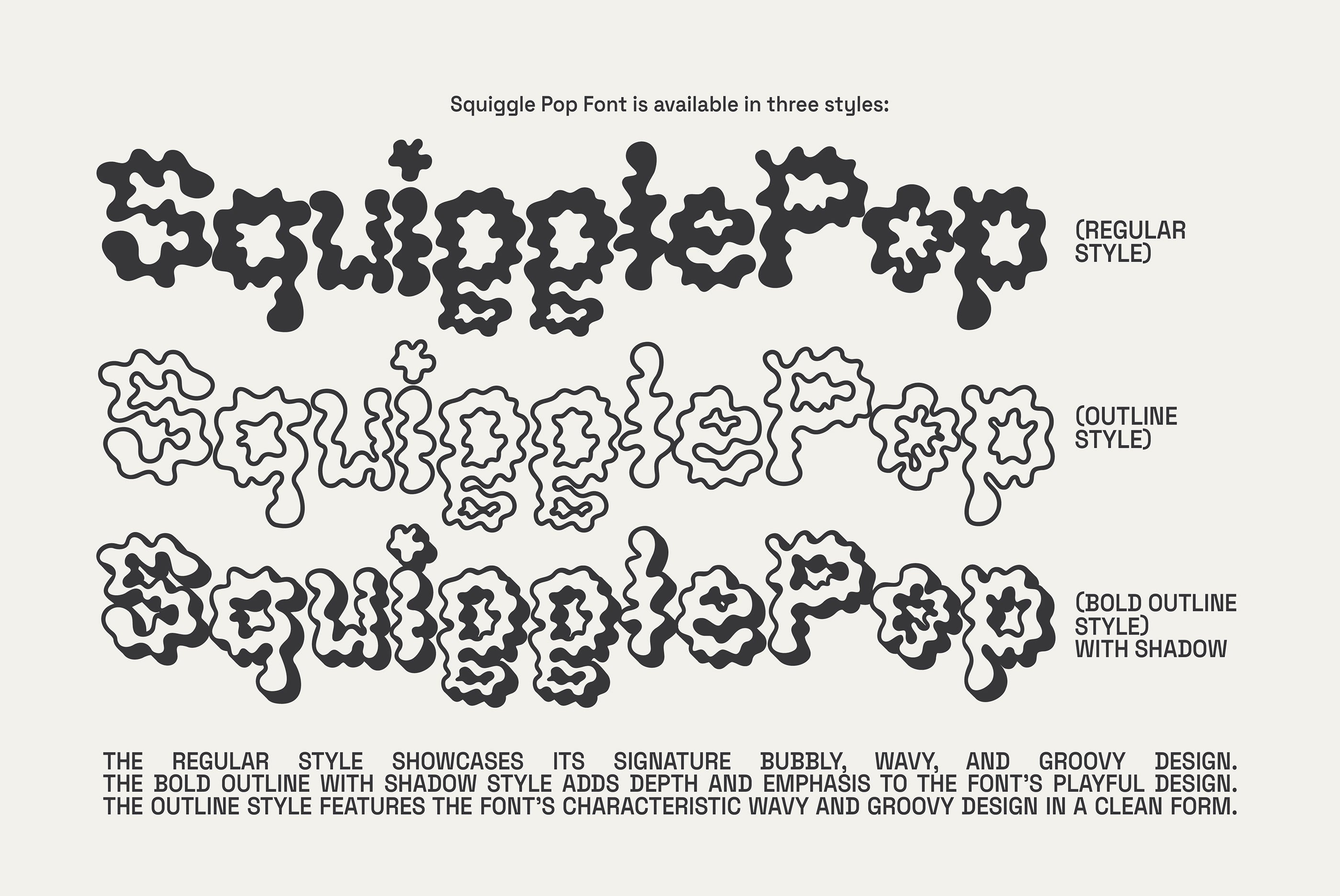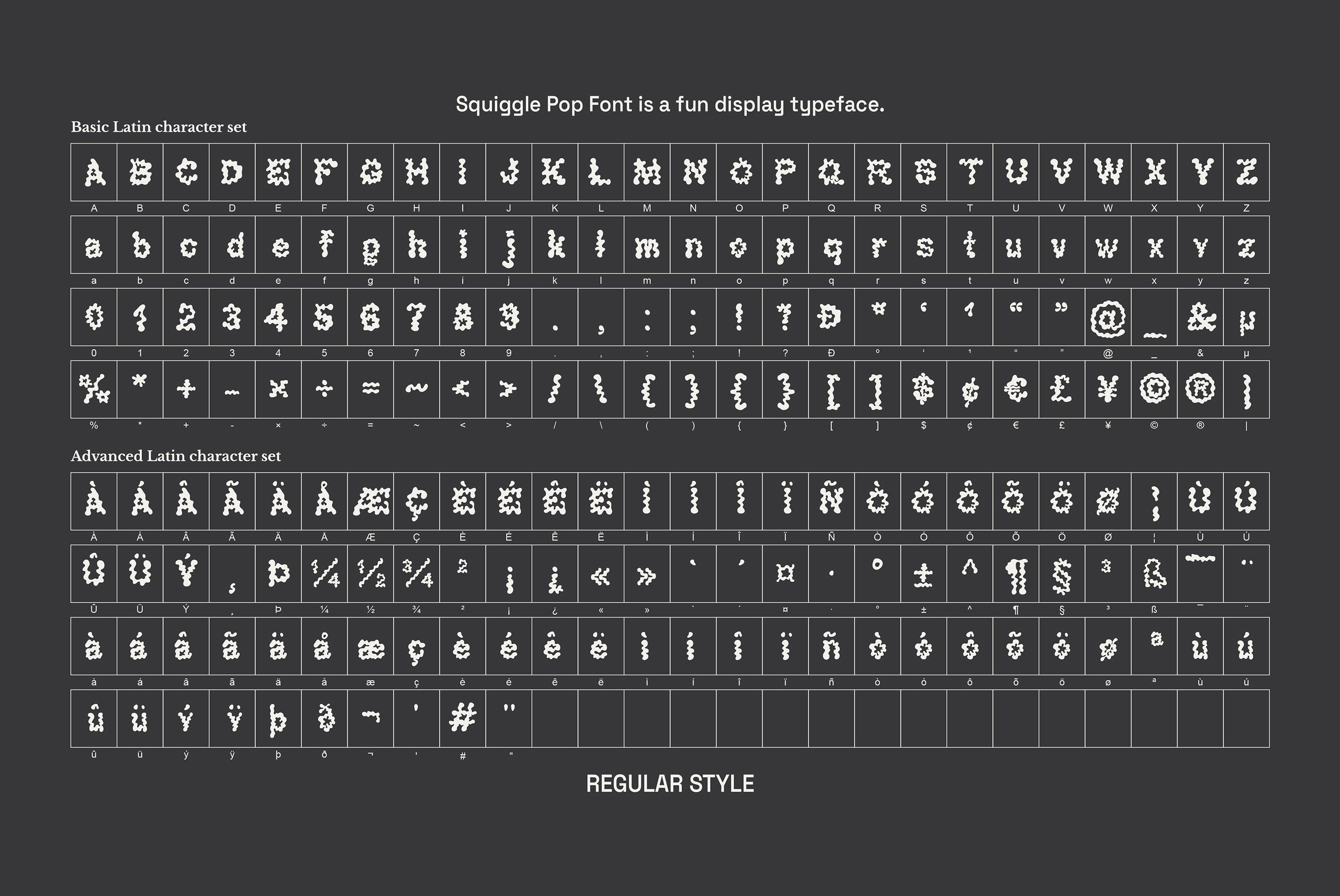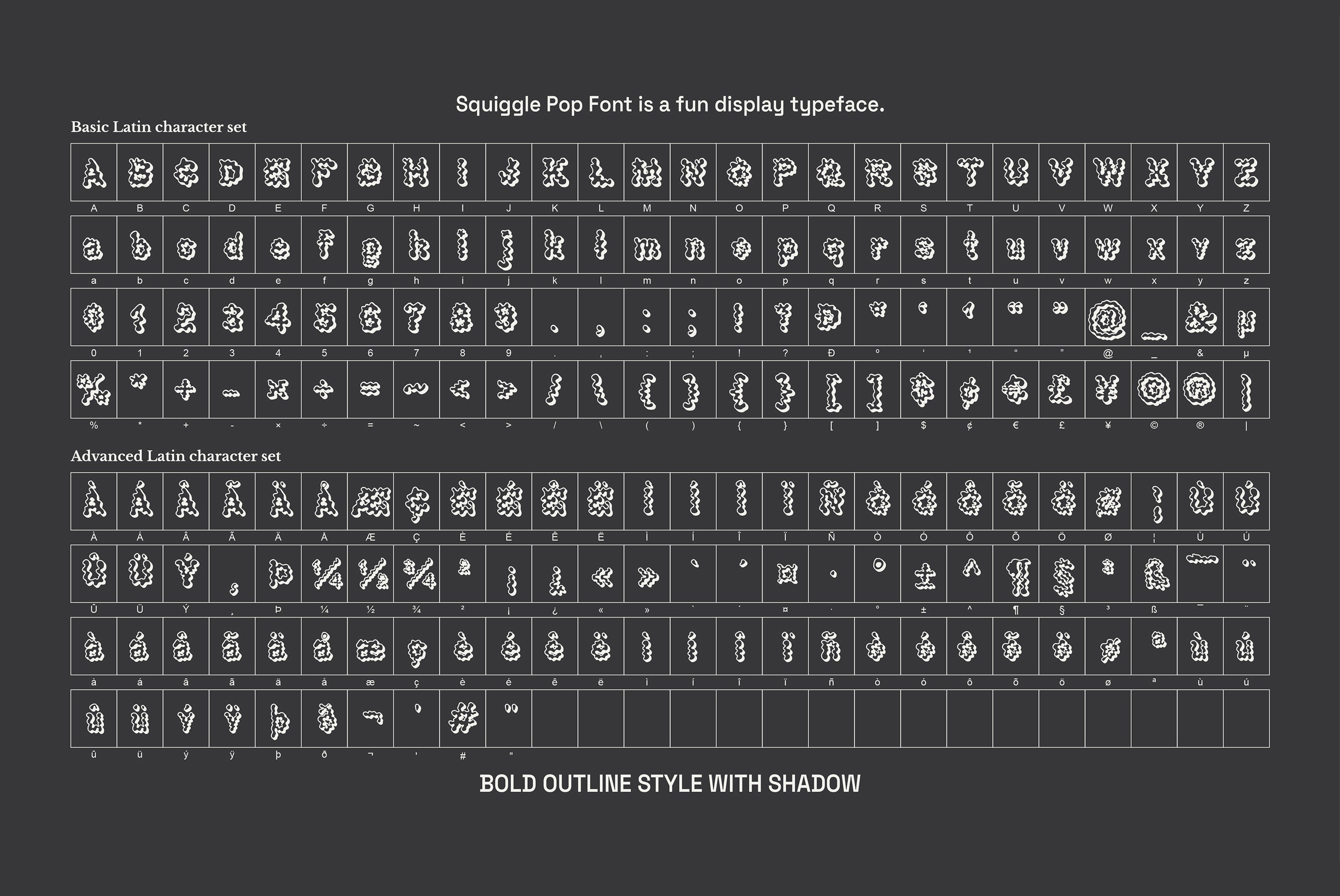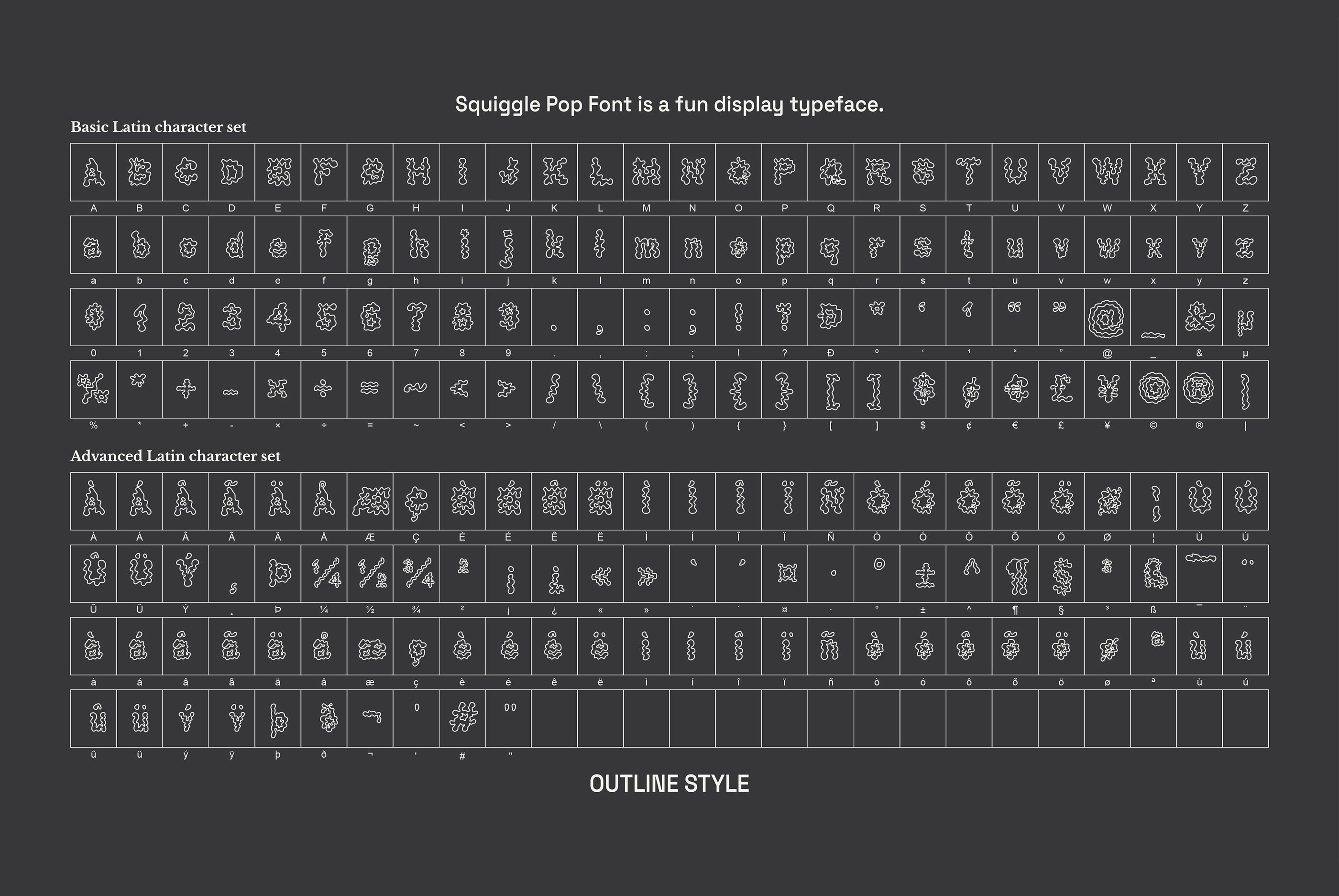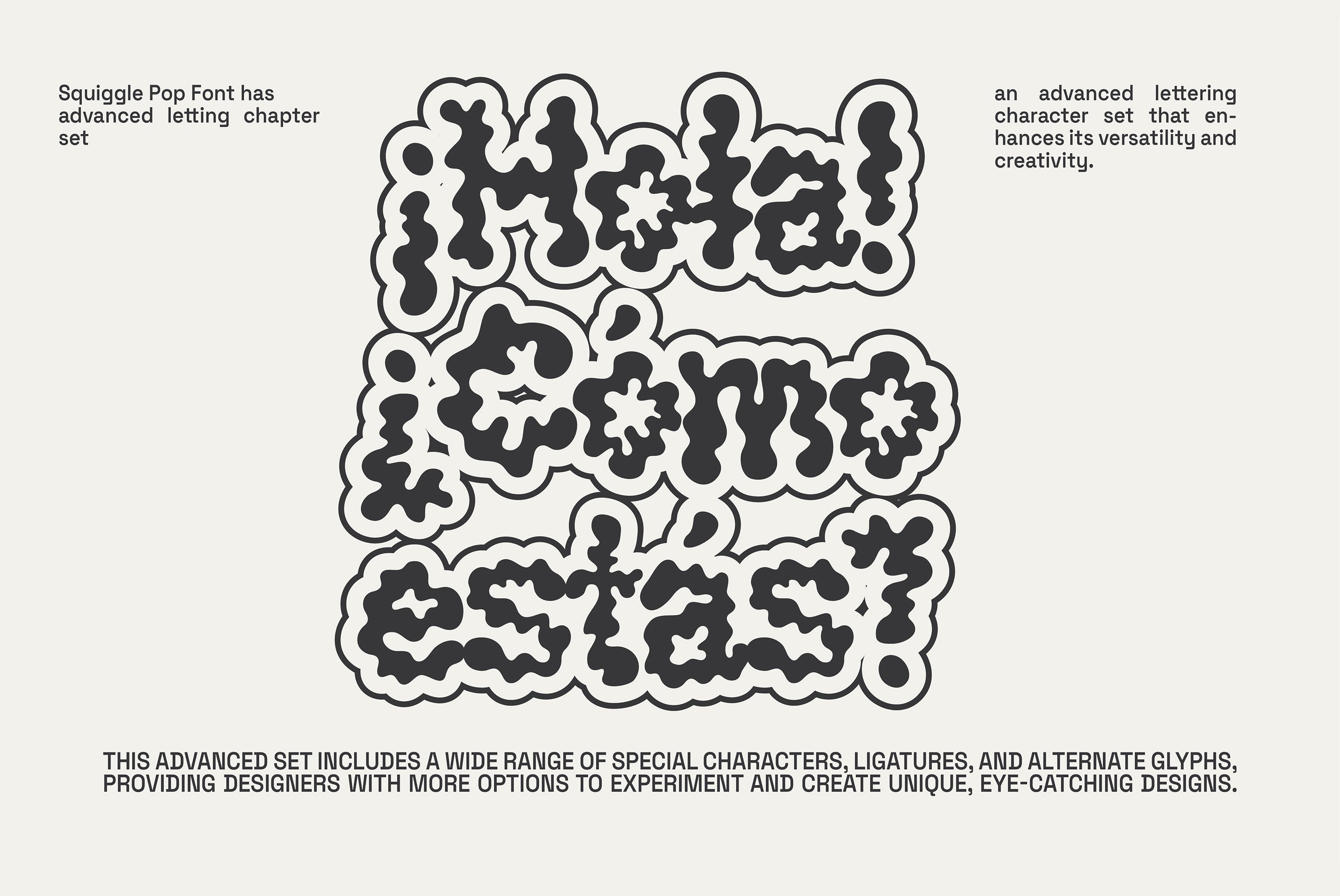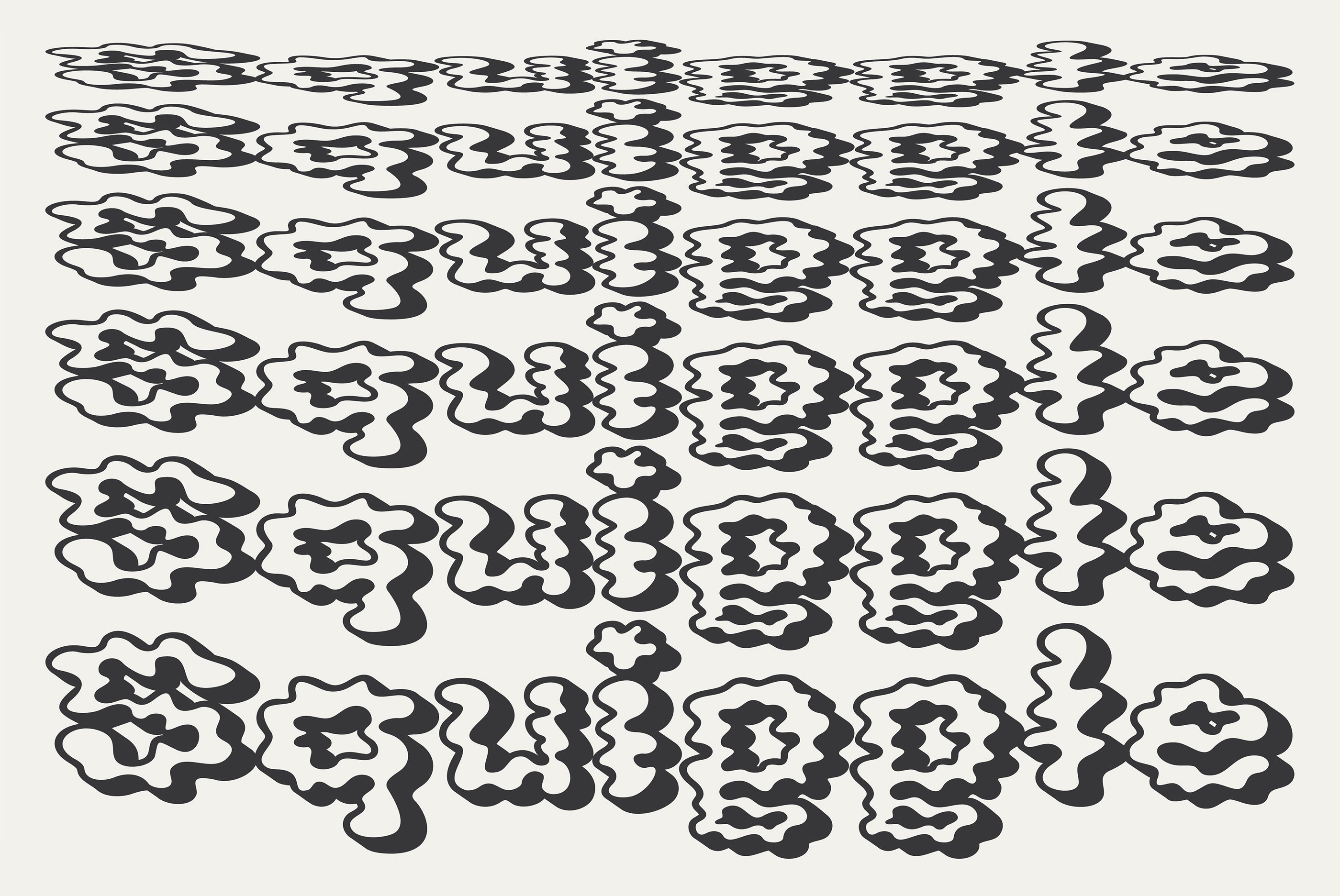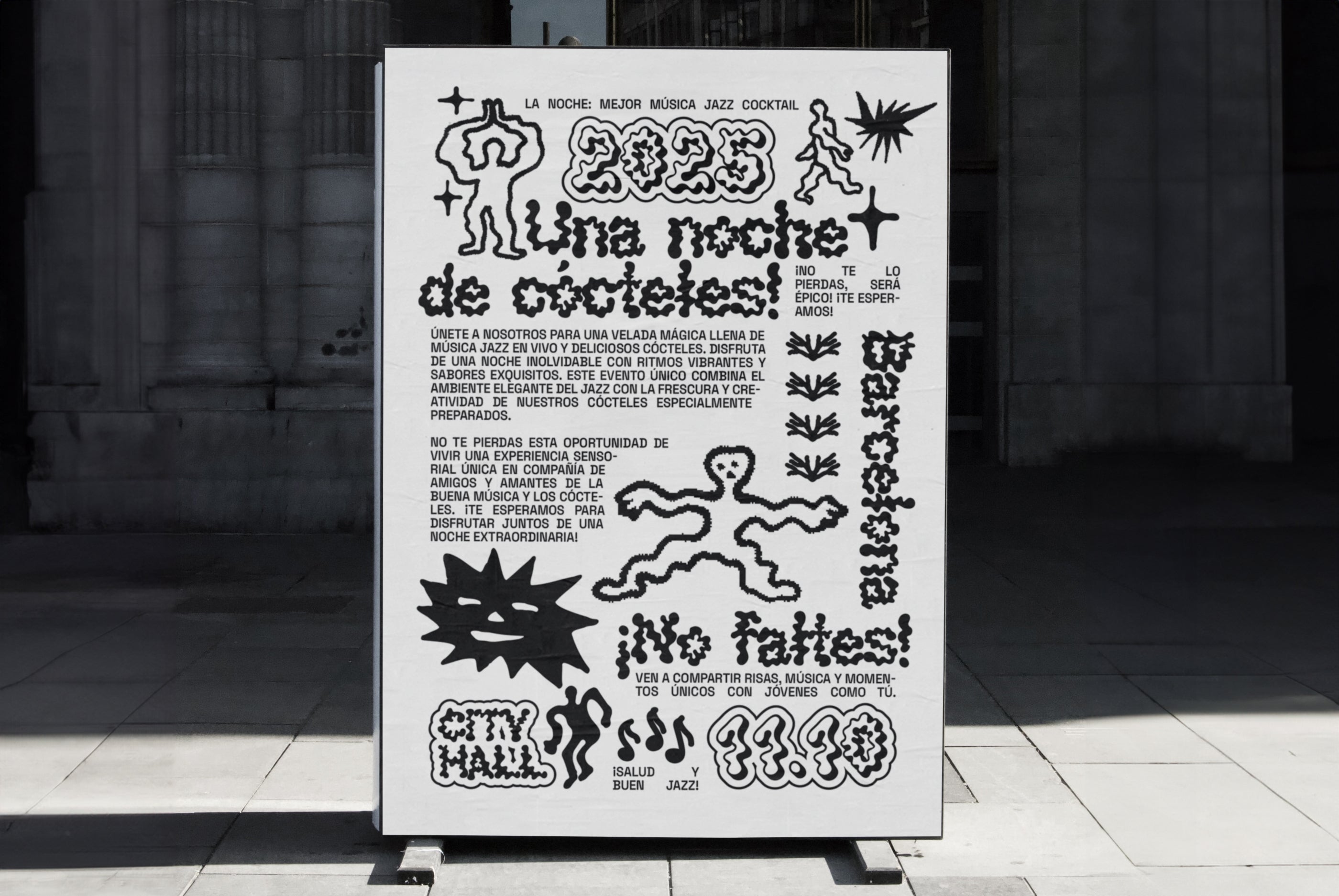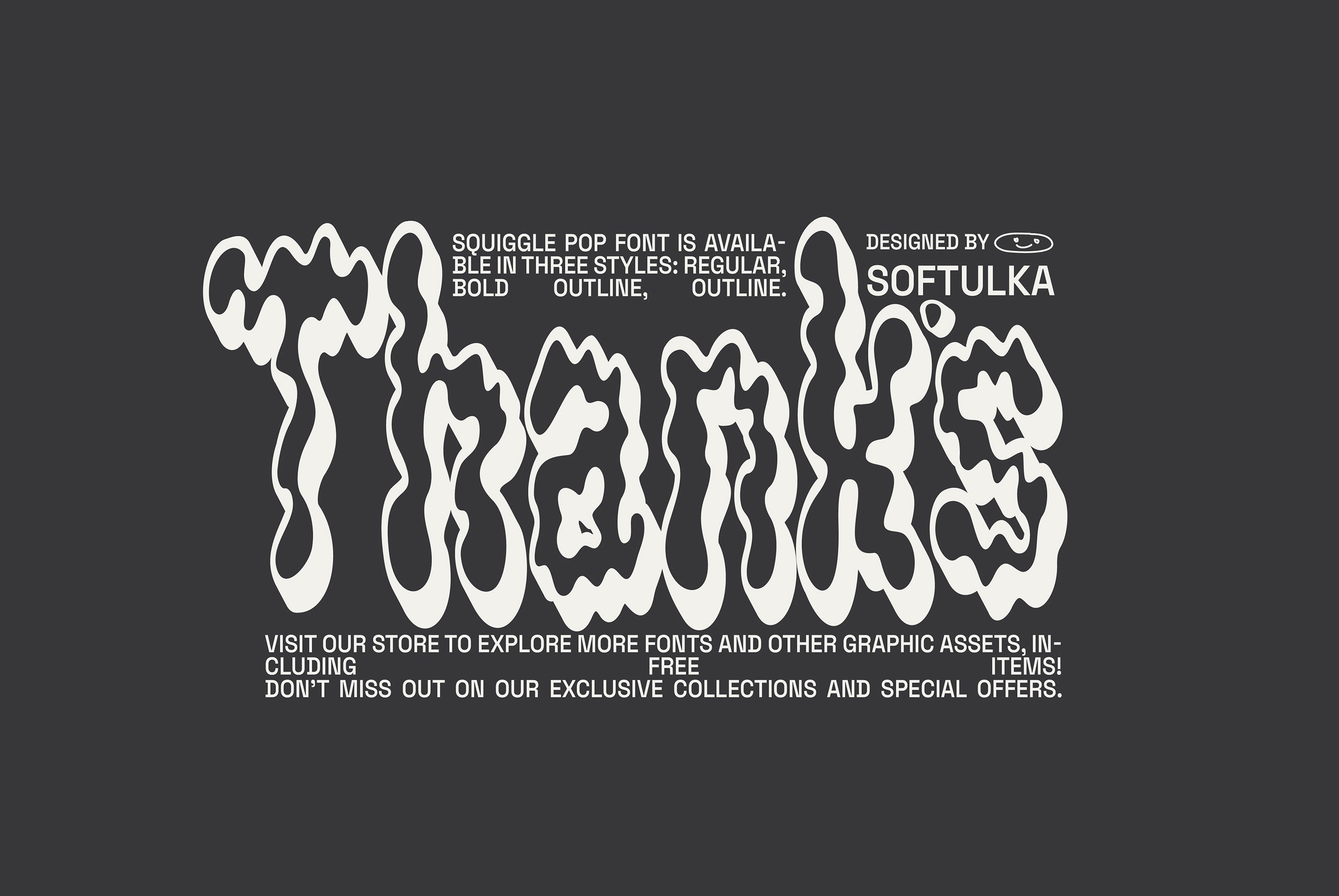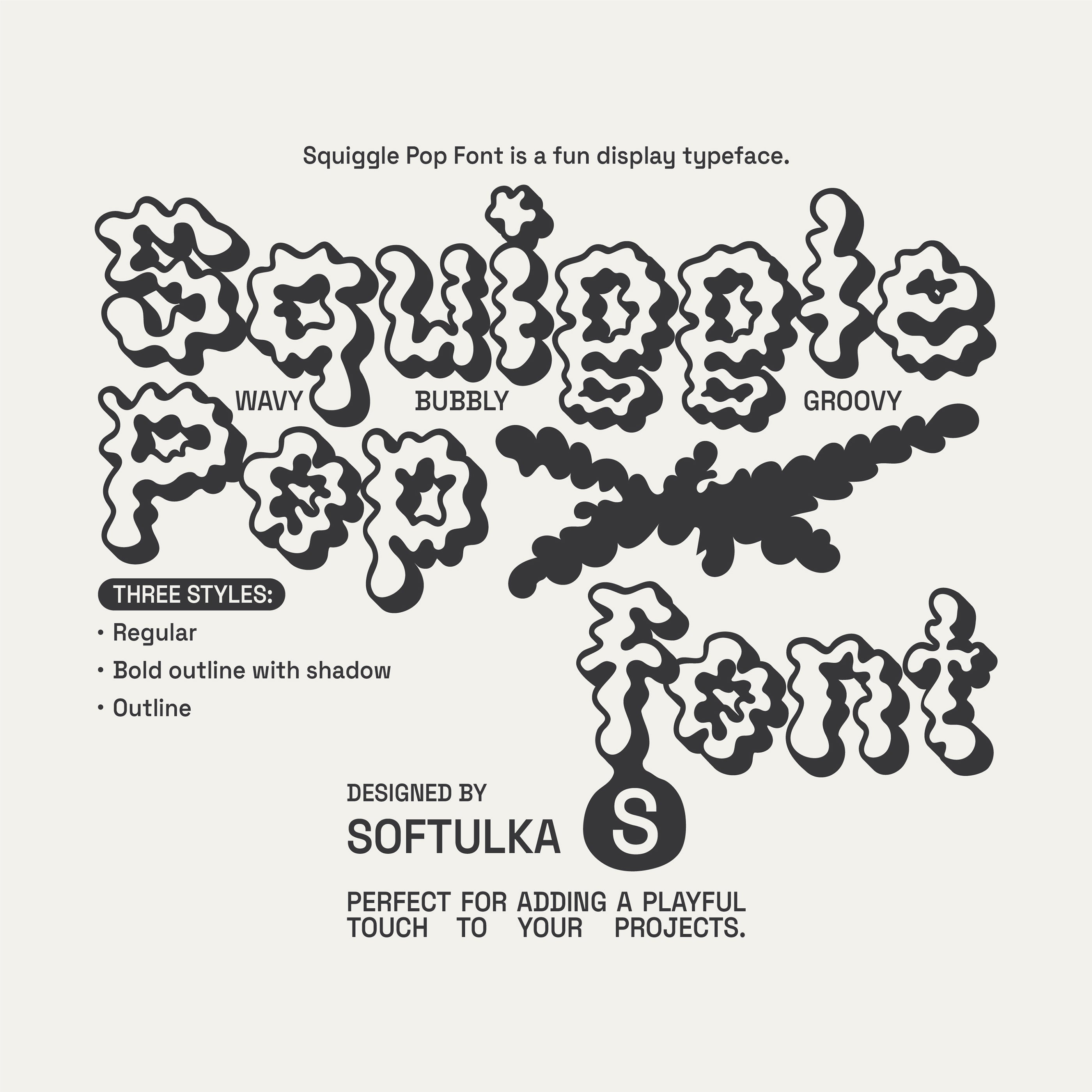
Squiggle Pop Font - Fun Display Typeface
The Squiggle Pop Font is a fun display typeface that features a bubbly, wavy, and groovy design. It comes in three styles: regular, bold outline with shadow, and outline, and is provided in OTF, TTF, WOFF, and vector file formats.
Ideal for playful and vibrant graphic design projects. Perfect for festival posters, bold titles, T-shirt graphics, and creative backgrounds, ensuring a fun and eye-catching visual appeal.